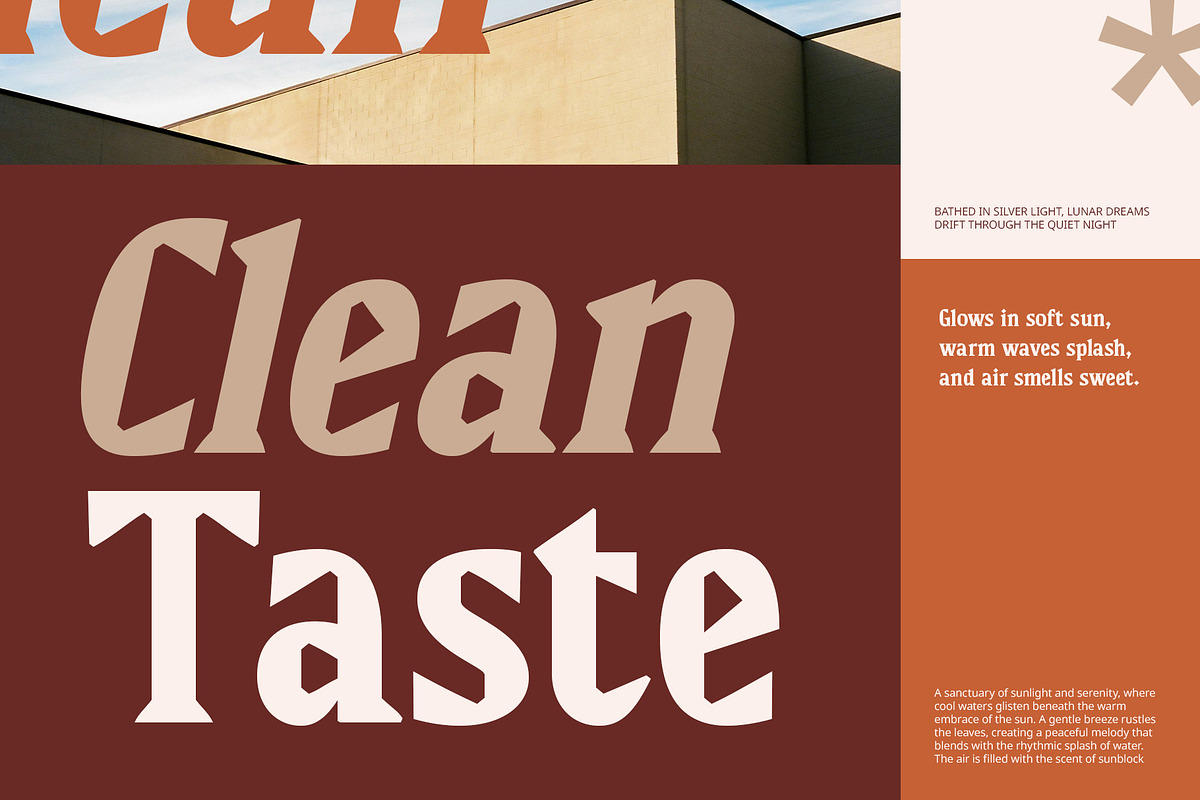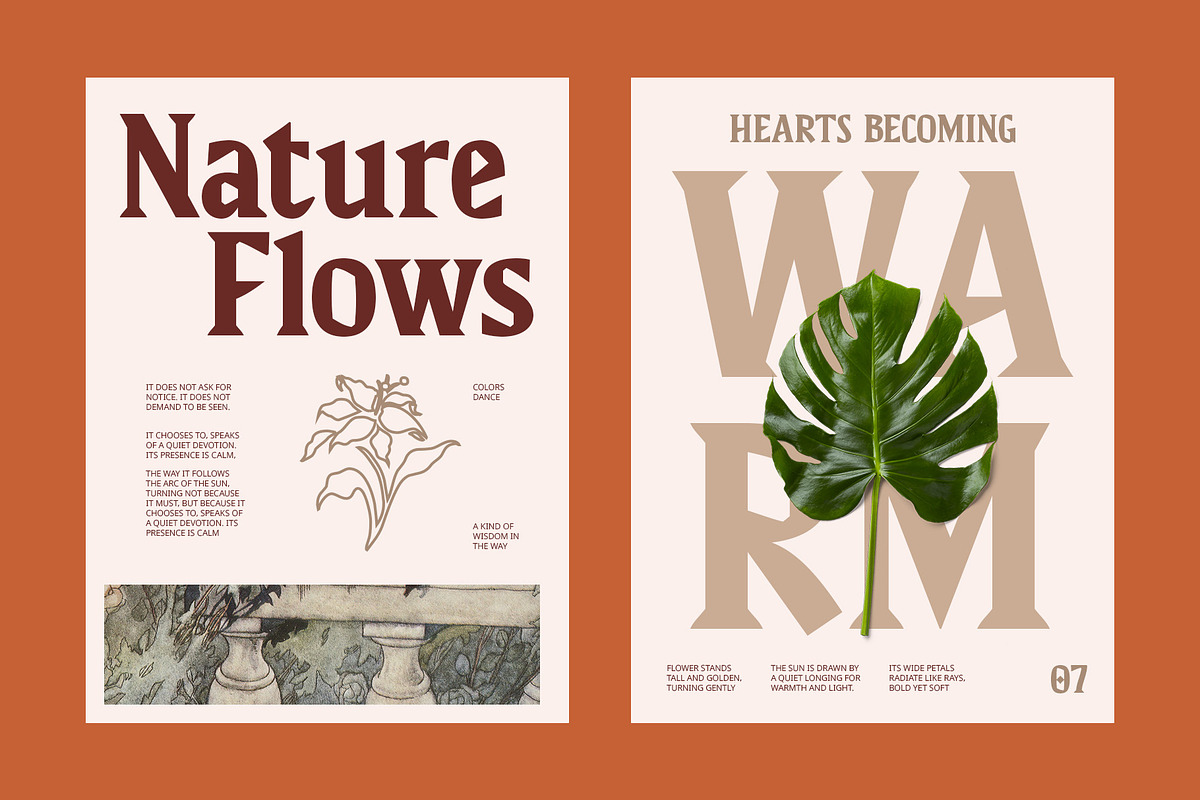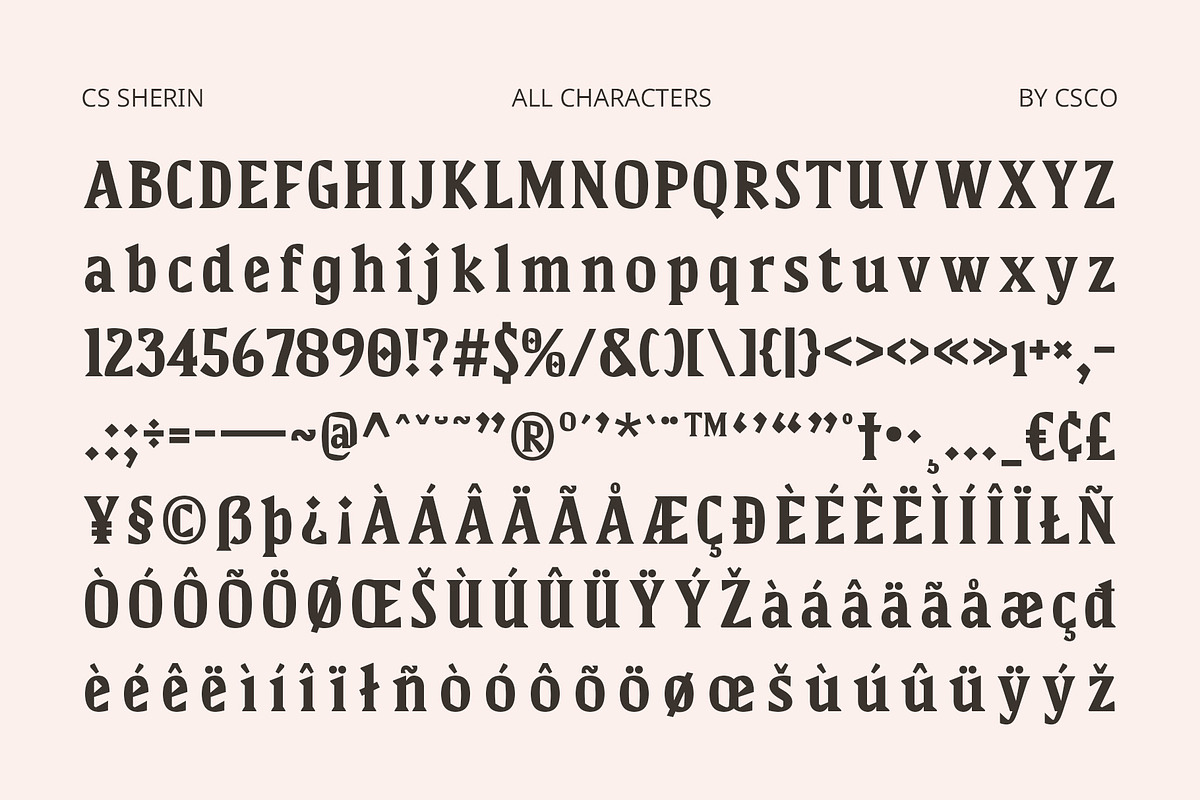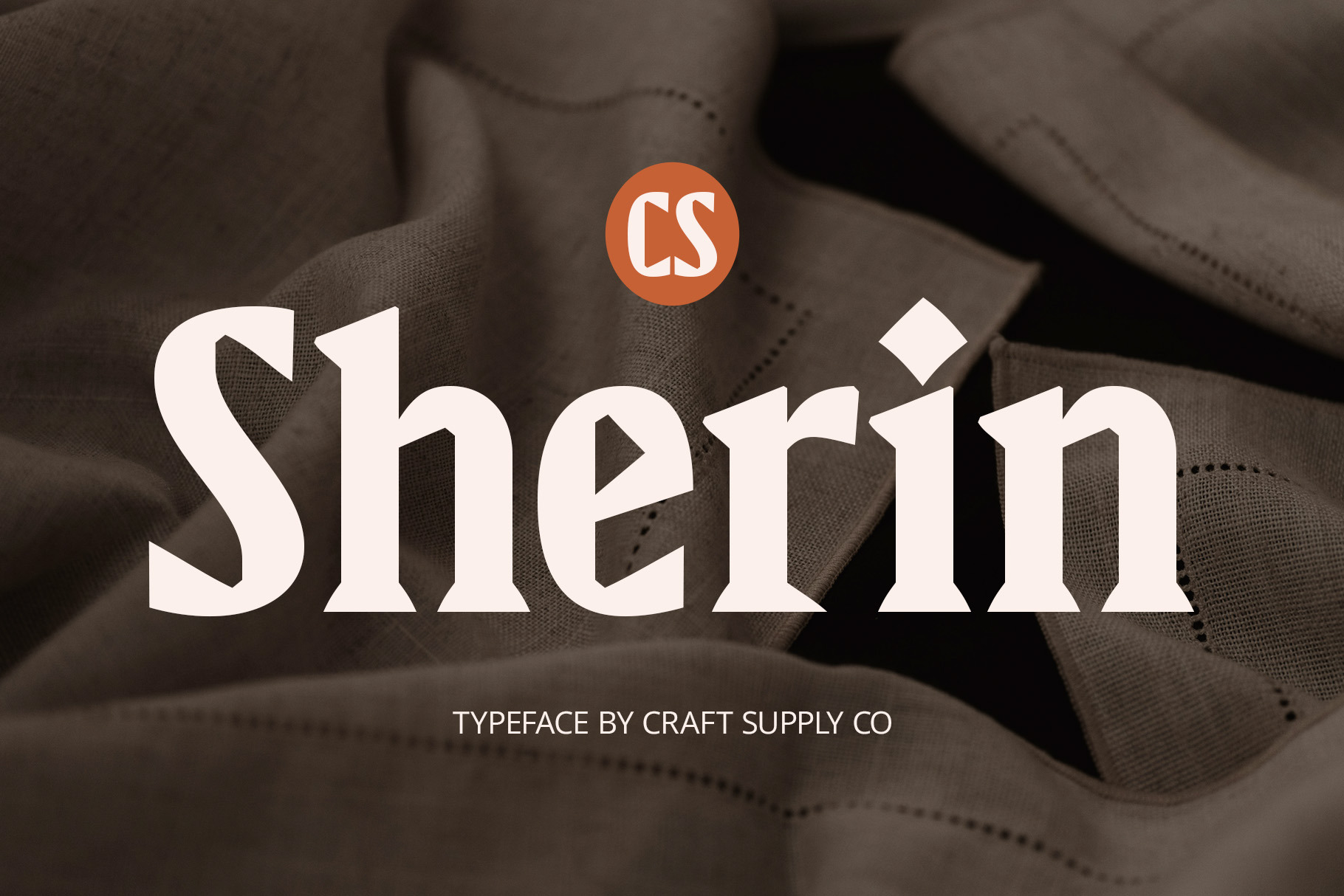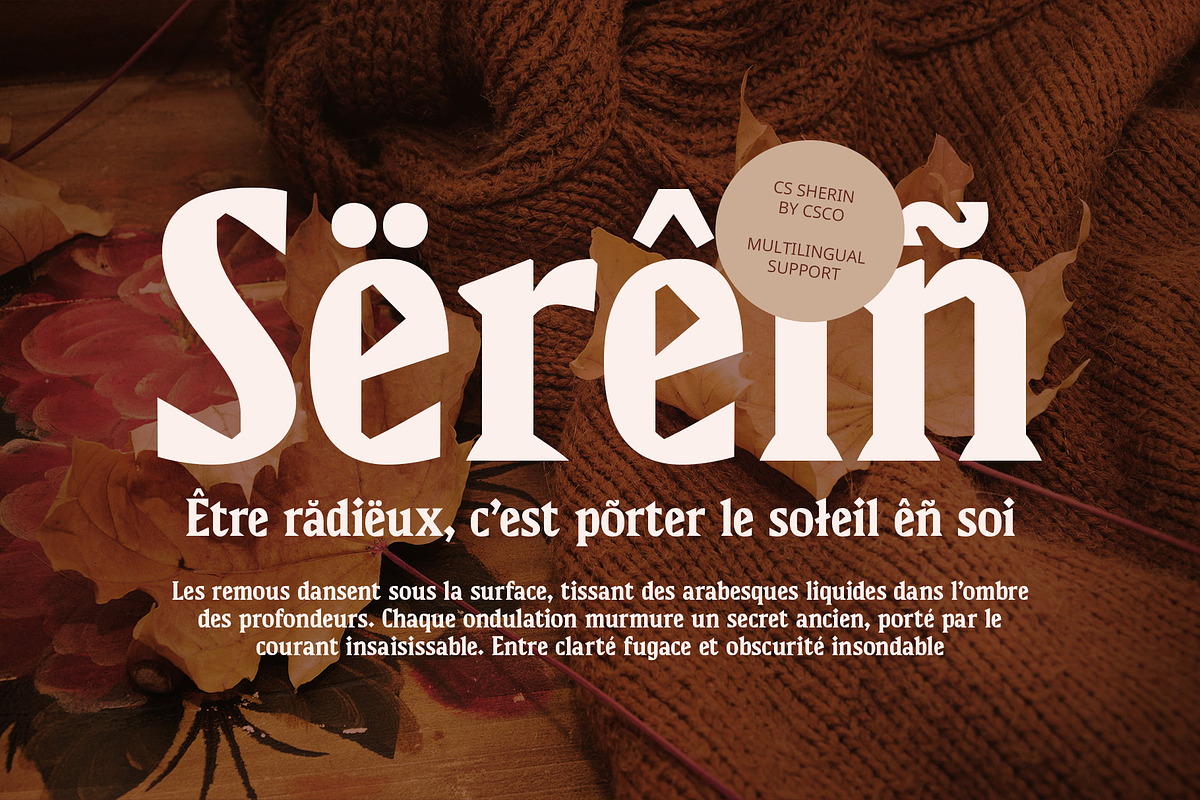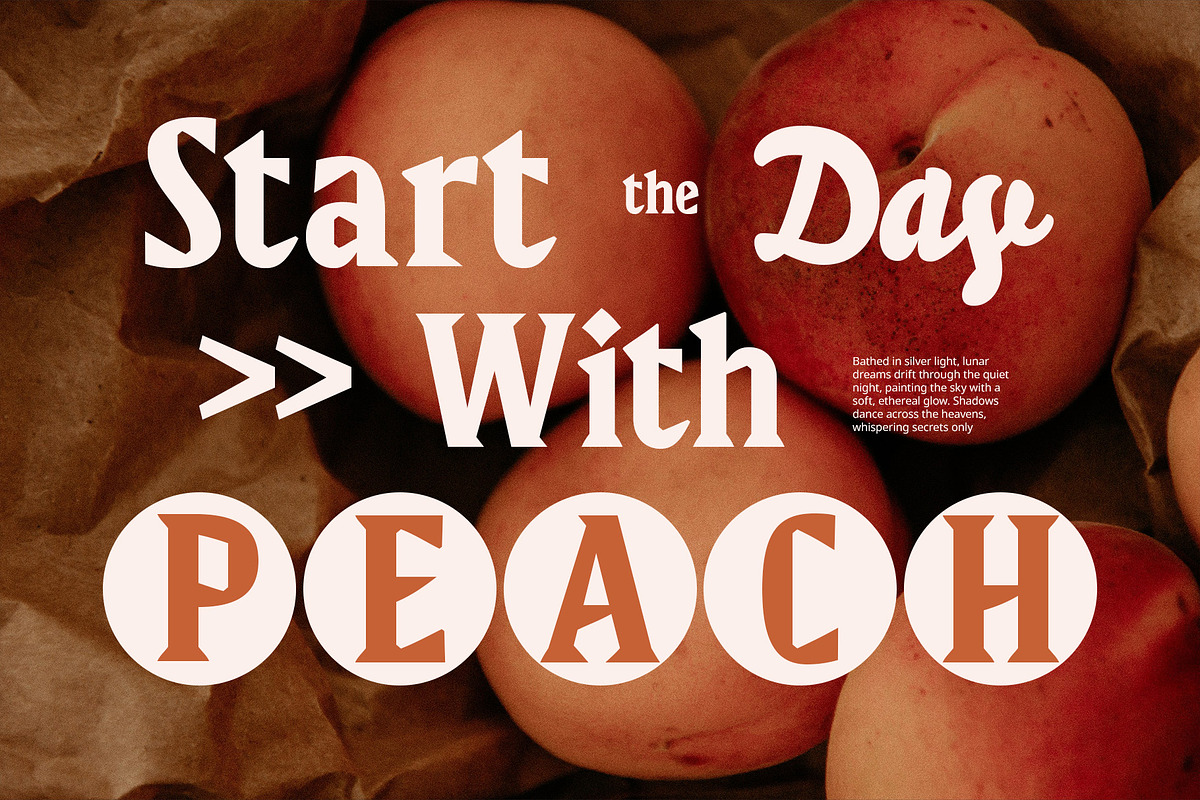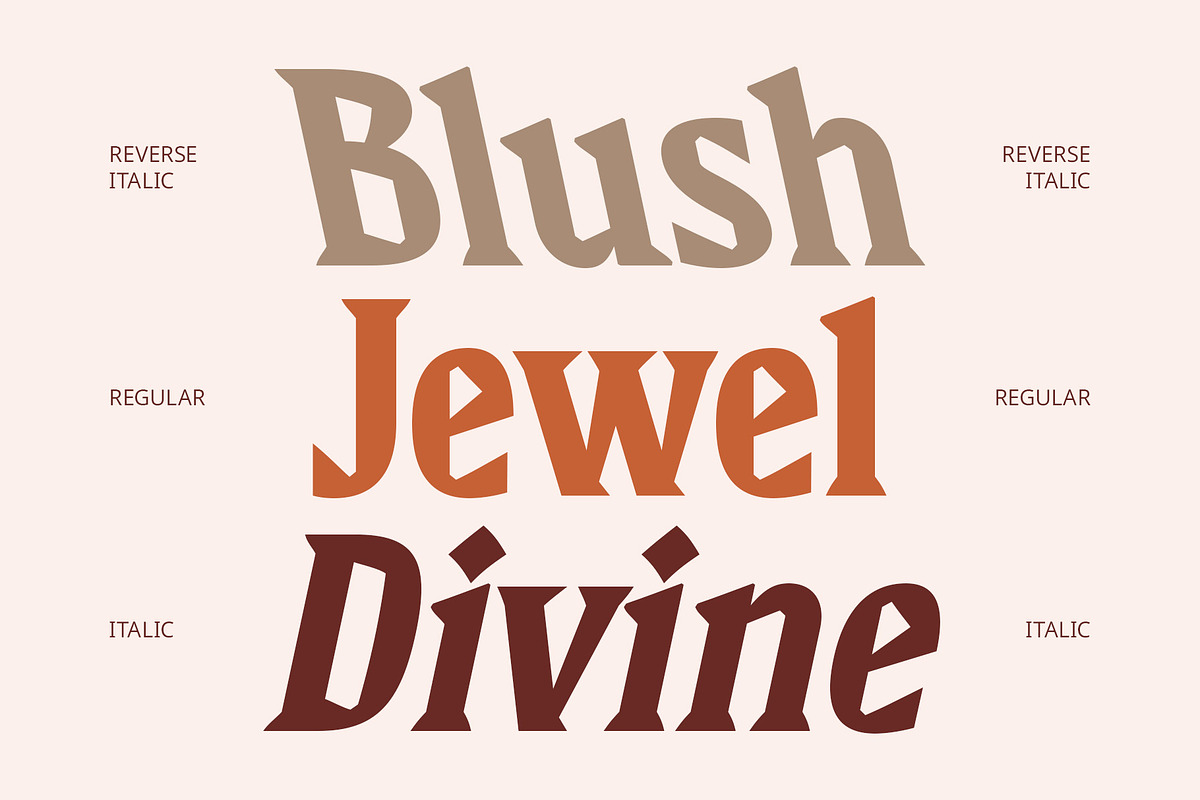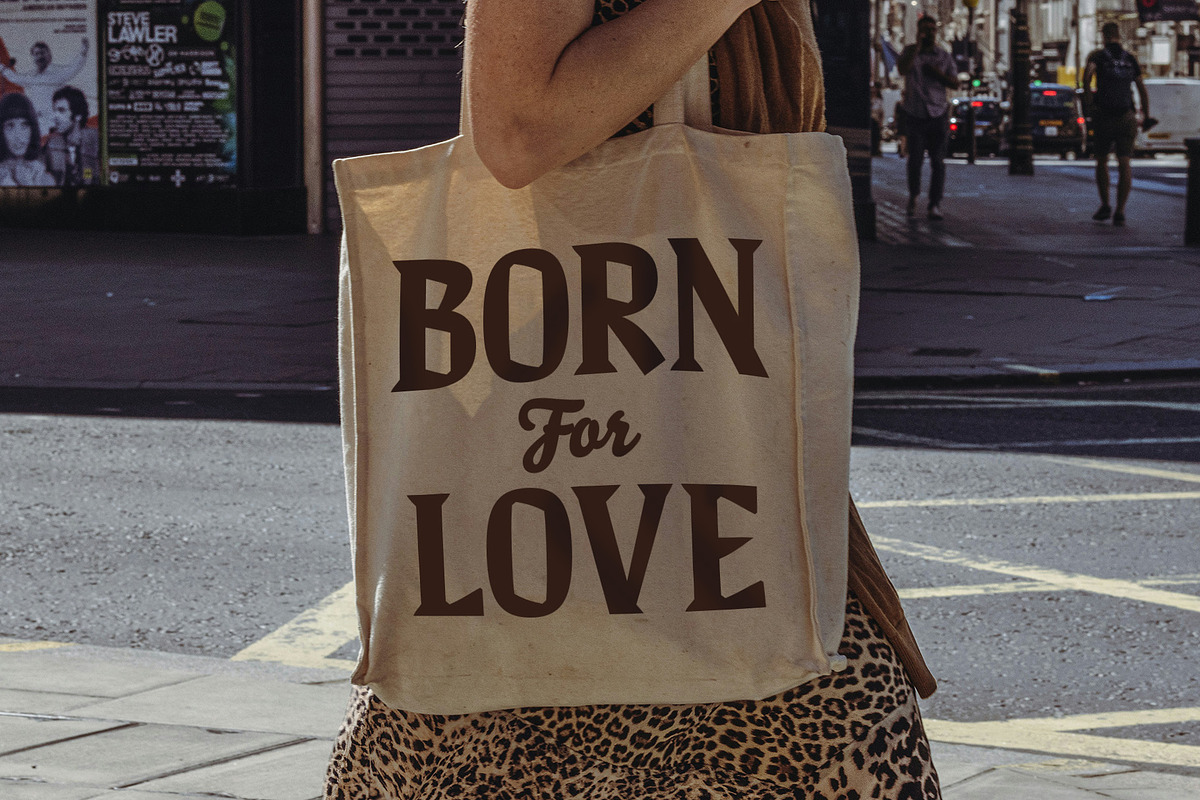
CS Sherin – Bold Font
CS Sherin – Bold Font: Bold Expression with a Vintage Soul
A Bold Serif Infused with Retro Energy CS Sherin is a classic display serif font that combines bold letterforms with a flat brush texture to deliver a vintage and expressive look. It draws on the charm of traditional brush strokes, adding a handcrafted edge to its strong serif structure. The result is a font that radiates both artistic flair and timeless appeal.
Brush Texture for Artistic Elegance With its flat brush-style finish, CS Sherin offers more than just boldness—it introduces texture, movement, and expression. The natural, painted feel brings an artisanal quality to each letter, adding depth and visual interest. This makes it ideal for designs that aim to convey both strength and sophistication.
Perfect for Retro-Inspired and Editorial Design Whether used for editorial headlines, retro posters, or vintage-style branding, CS Sherin holds a commanding presence. Its bold strokes and classic curves work together to make a statement, while still allowing for stylistic flexibility in modern and nostalgic visual themes alike.
Sturdy and Stylish for Character-Driven Branding CS Sherin’s sturdy characters give your message weight and clarity, while its artistic nuances ensure your design remains full of personality. It’s especially effective in branding projects that require boldness with a touch of elegance, from product packaging to logo designs with a handcrafted vibe.
- CS Sherin Regular
- CS Sherin Italic
- CS Sherin Reverse Italic